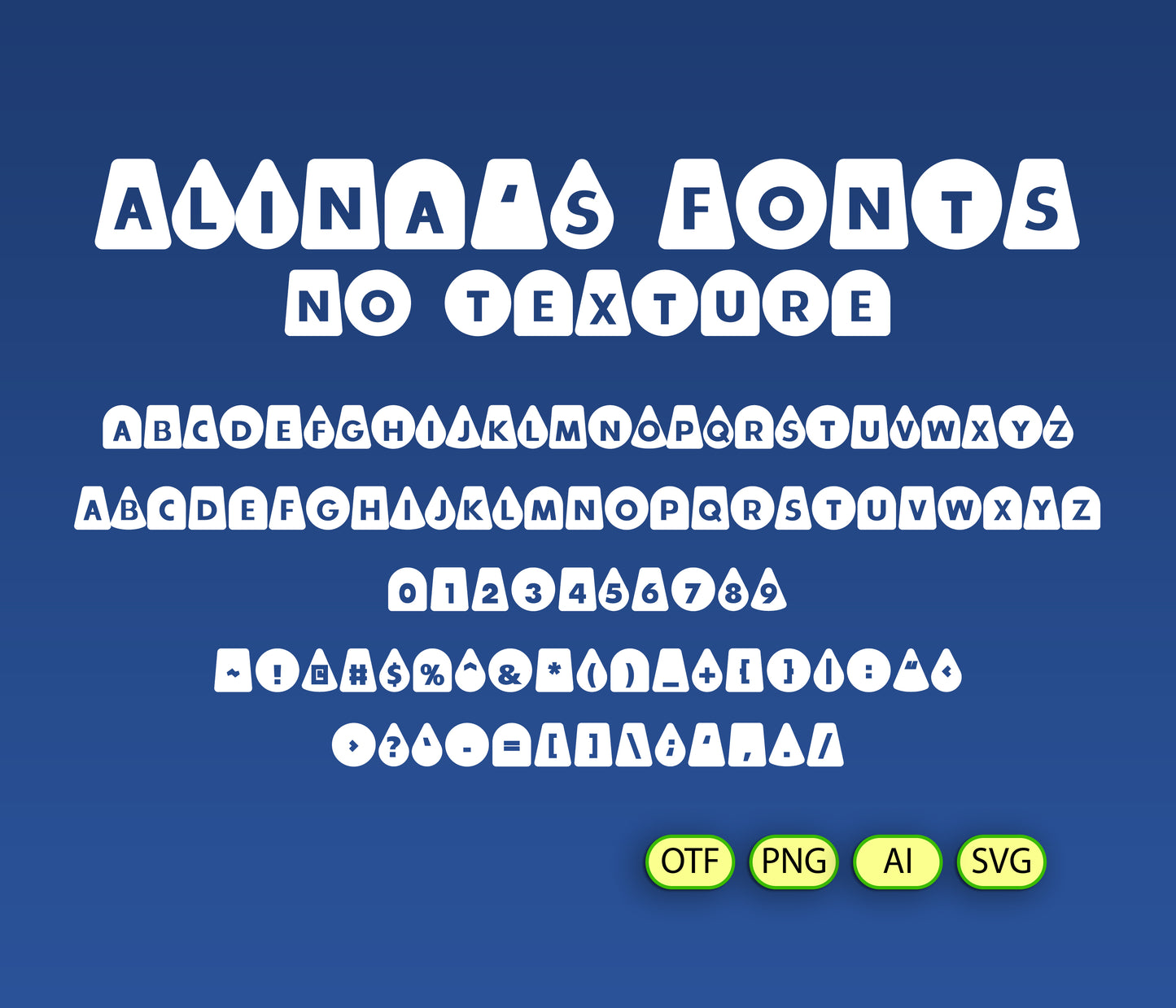
Segmented Spectrum Font Plain Style
Step into the captivating world of partitioned tones with our Segmented Spectrum Font Plain Style, capturing the essence of methodical arrangement and palette-driven creativity. Perfect for graphic specialists, occasion planners, media producers, and artistic practitioners, this font brings the powerful, current spirit of sharp-edged simplicity to your projects. Create standout invitations, commercial goods, or web content with the assertive character of systematic shade organization.
Bold Typography for Progressive Design & Expressive Projects
Our Segmented Spectrum Font Plain Style features prominent, stylized letterforms with sleek, unembellished surfaces reflecting the world of forward-thinking aesthetics and radiant tone pairings.
Our font pays tribute to the world of sleek design frameworks and progressive visual expression, empowering your projects with its powerful and radiant spirit. Whether crafting marketing materials, designing commercial products, or adding a palette-driven touch to personal projects, this font communicates the animated essence of partitioned aesthetics. Ready to inject powerful tones into your creations? This font is your key to standout, impactful design.